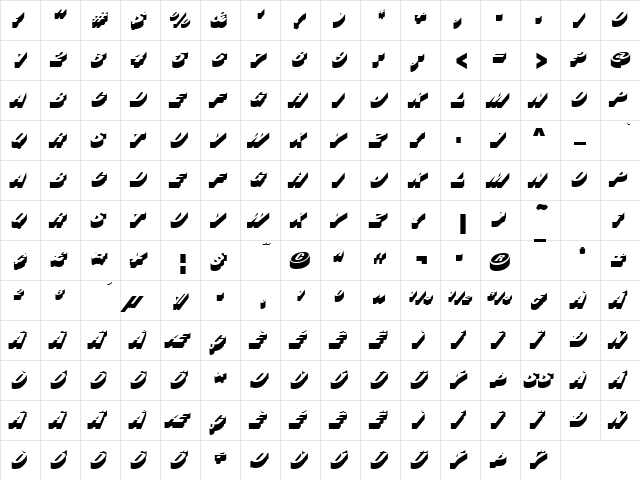
URWBuschingD Regular
Design Context for URWBuschingD Typeface
URWBuschingD is a composed and adaptable typeface that performs quietly and consistently across a wide range of design contexts.